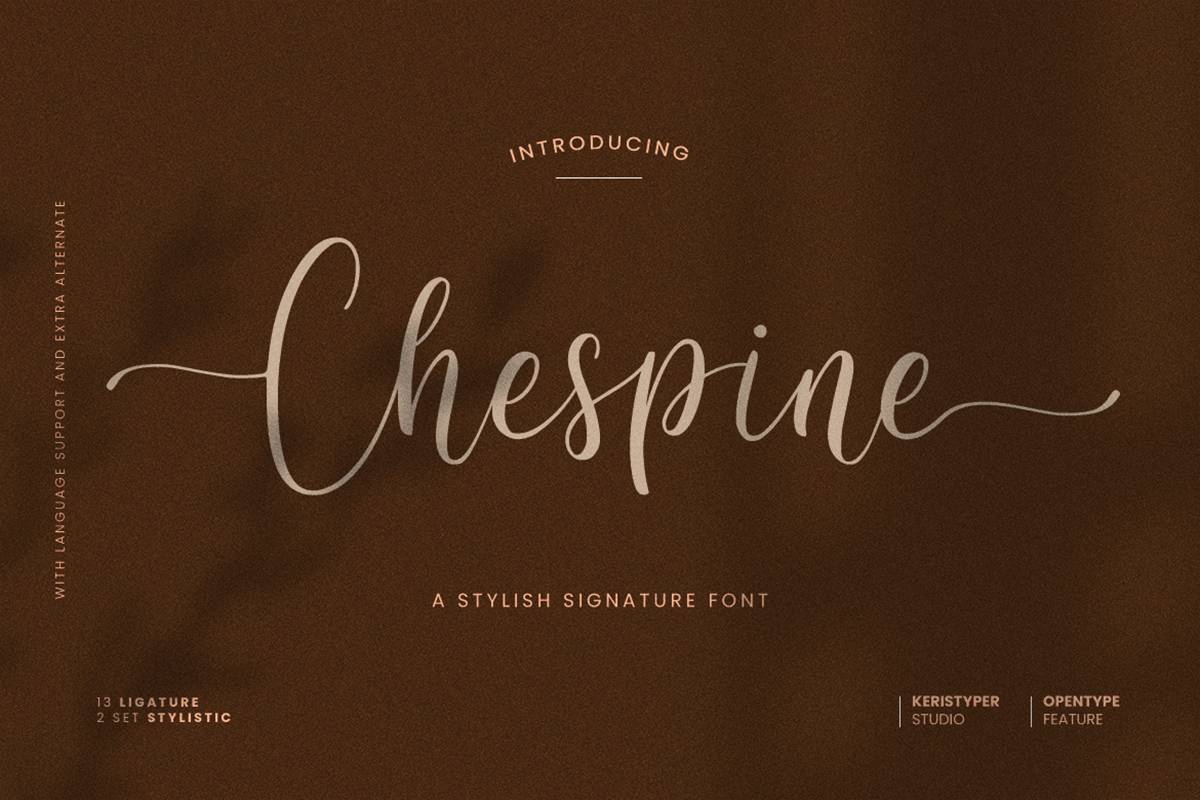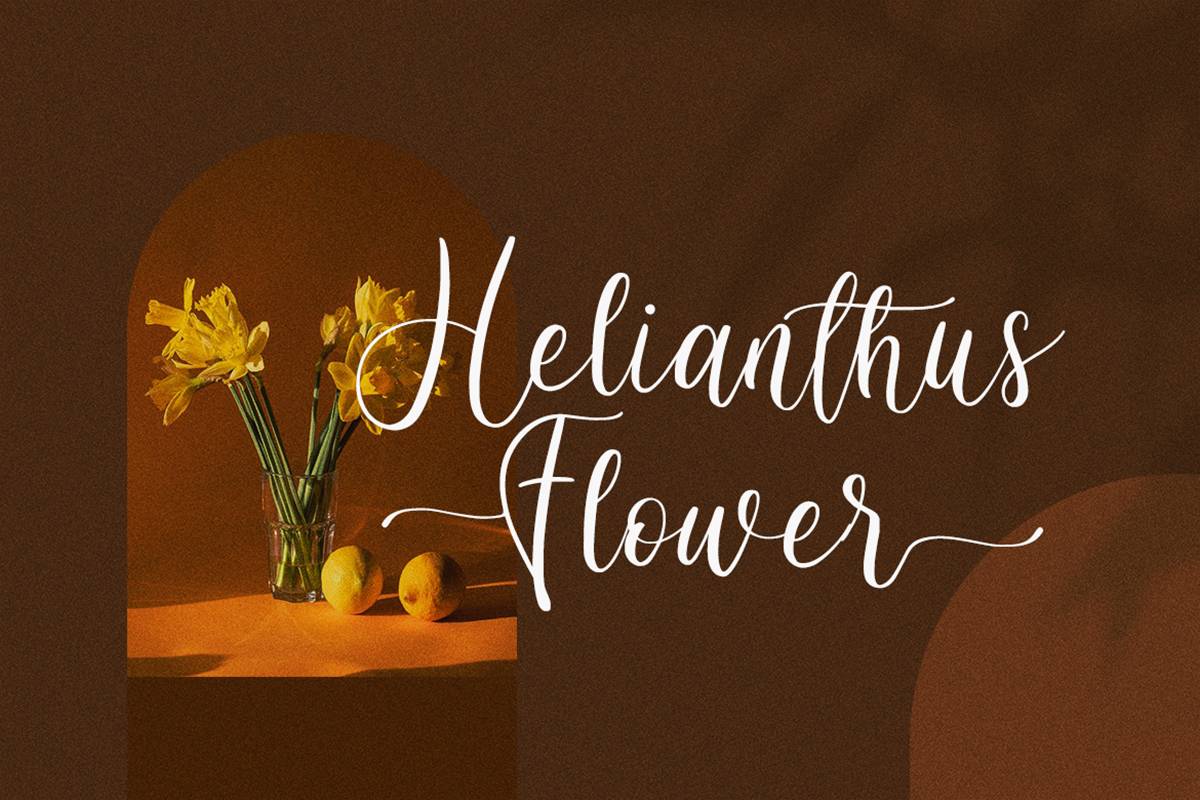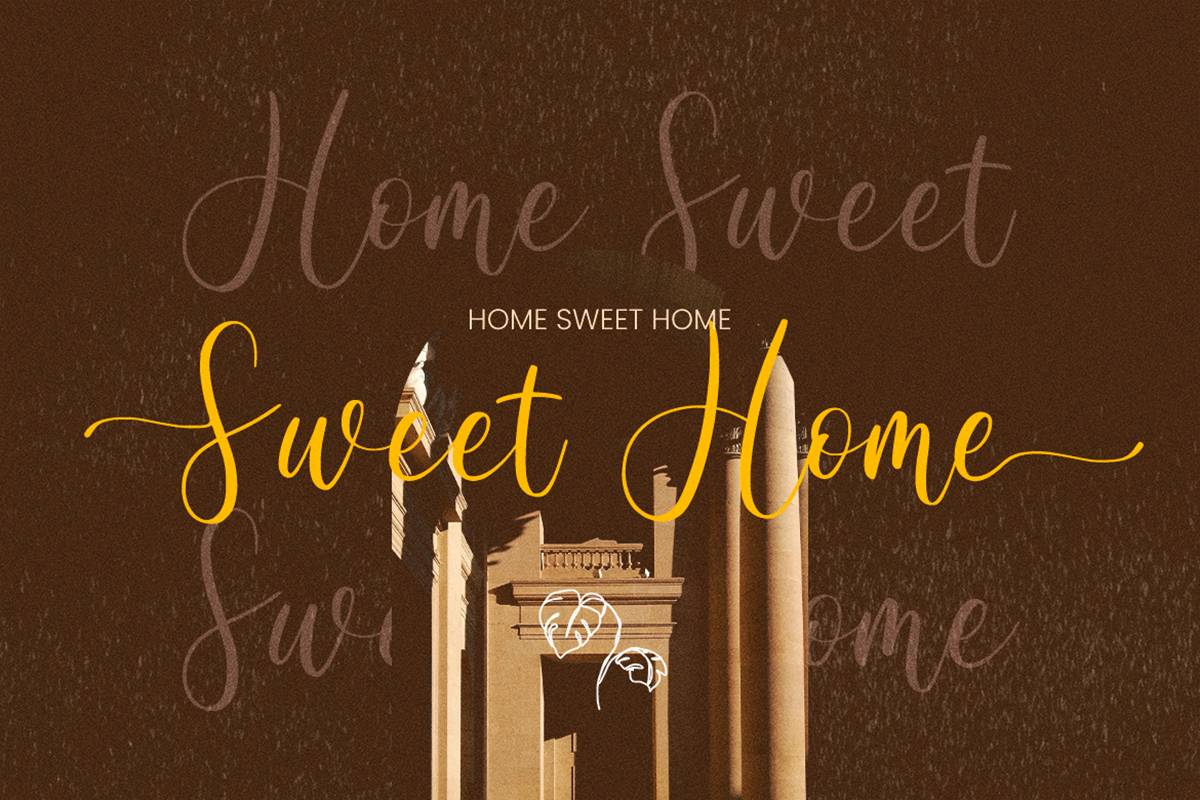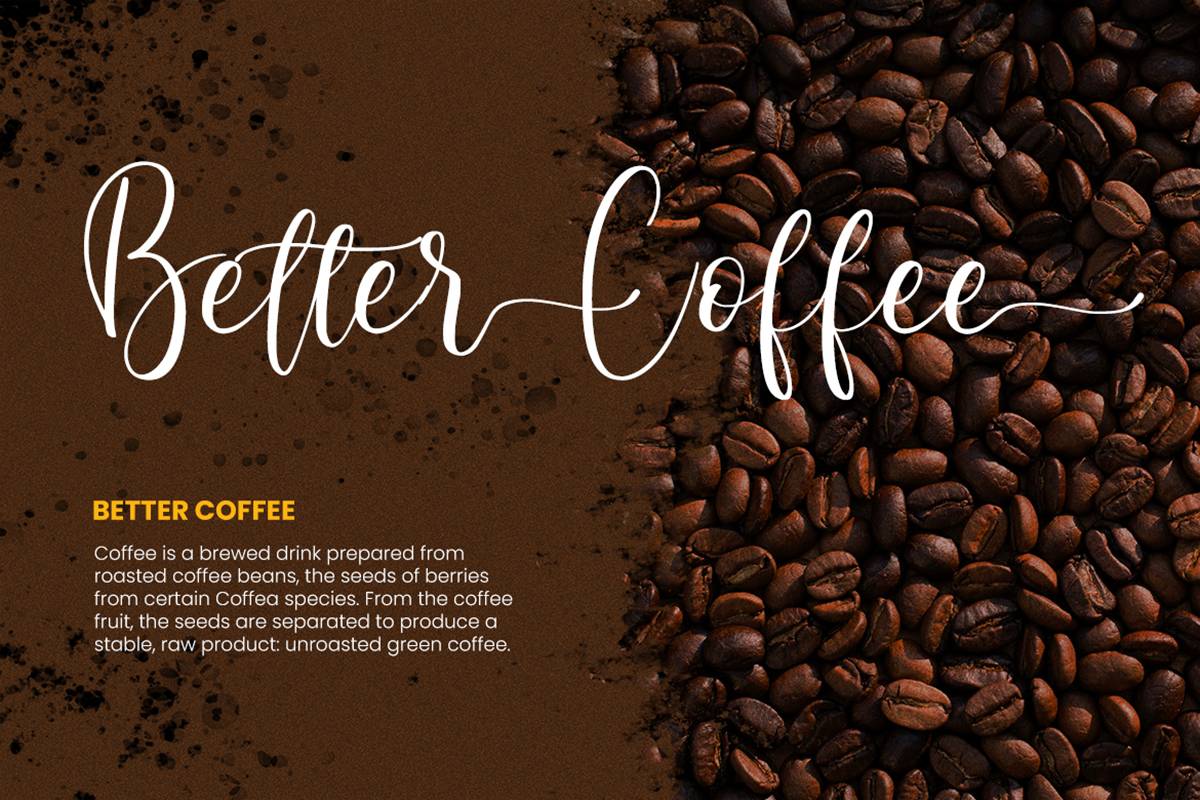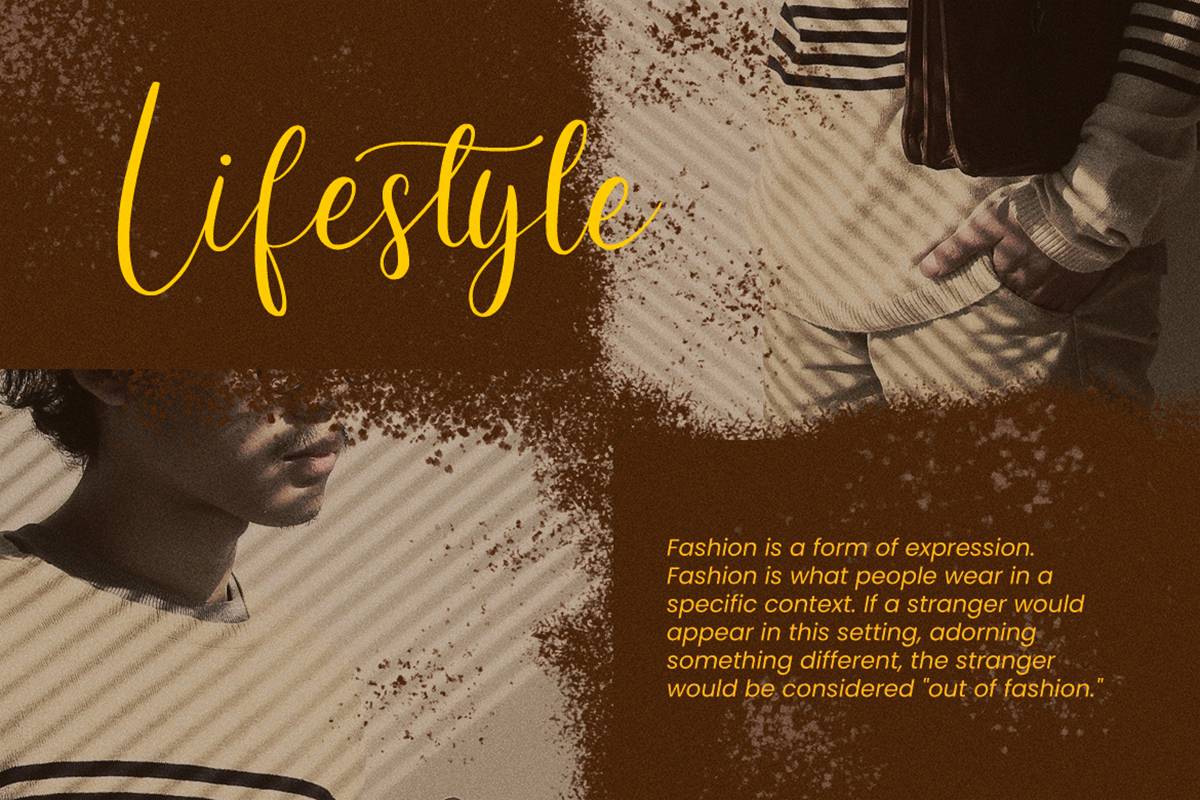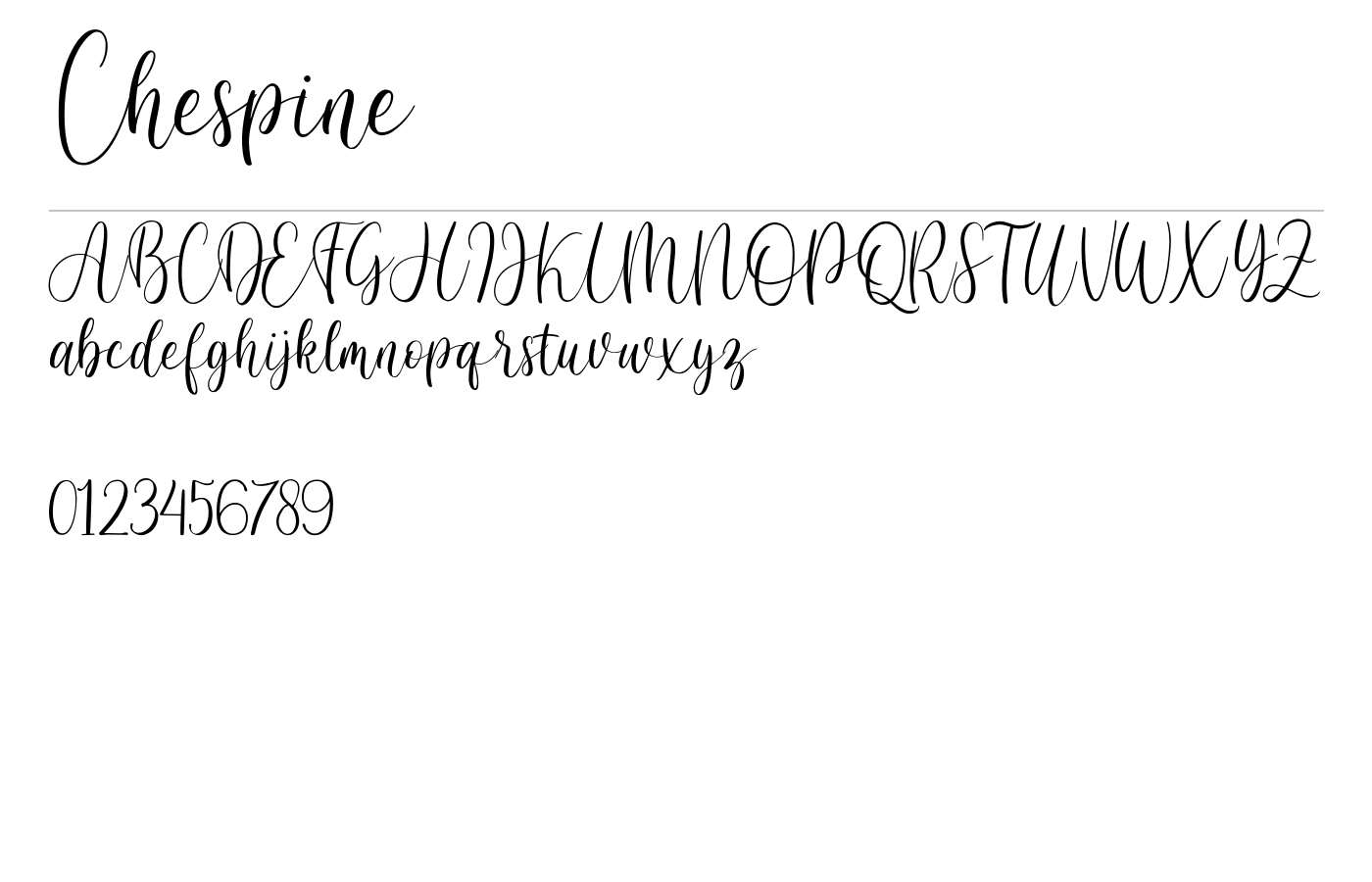
Chespine is an elegant, slender script font featuring flowing, calligraphic strokes that create a graceful and sophisticated feel. Its tall, airy letterforms and smooth curves make it perfect for stylish branding, wedding invitations, and feminine editorial designs where a touch of delicate charm is desired. This font shines best in headlines or short text, lending a refined, personal touch to any creative project.
Chespine Font
About Chespine Font